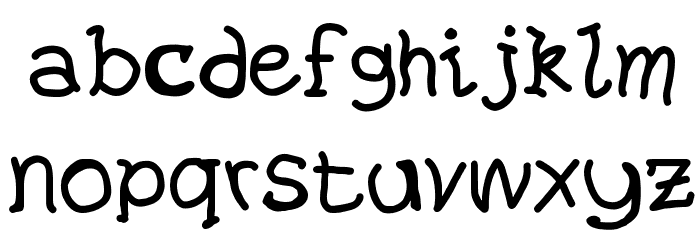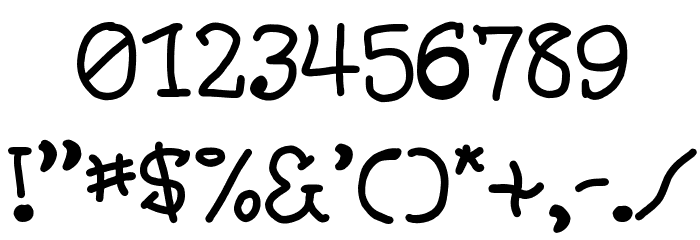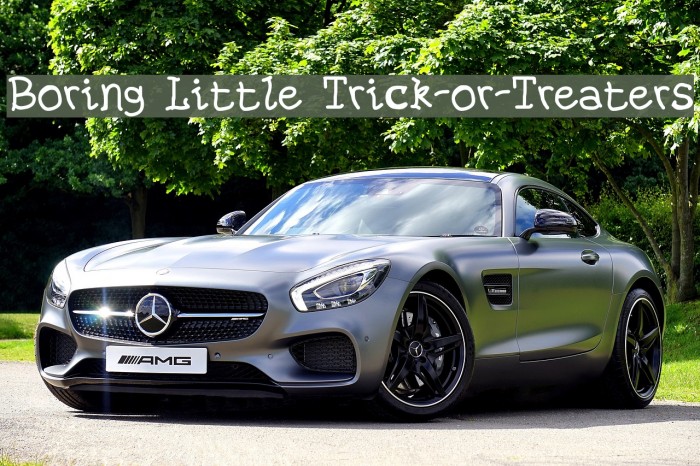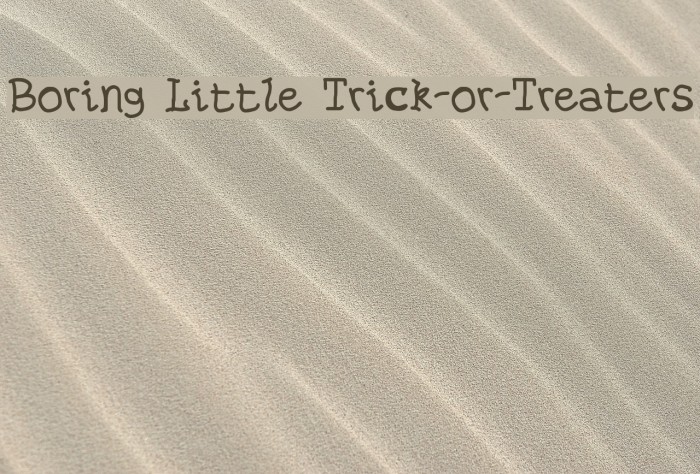
Boring Little Trick-or-Treaters Font
This playful and whimsical font features a hand-drawn, slightly irregular style that evokes a sense of fun and creativity. The characters are rounded with a bouncy baseline, giving it a lively and informal appearance. The uppercase letters are bold and prominent, while the lowercase letters maintain a consistent flow with slight variations in height and width. The numerals are quirky and match the overall playful theme. Special characters are uniquely styled, adding to the font's charm. This font is perfect for projects that require a touch of humor and personality.
A playful, hand-drawn font with a whimsical and lively style.
- Proposed Projects: Ideal for children's books, party invitations, Halloween-themed designs, and playful branding.